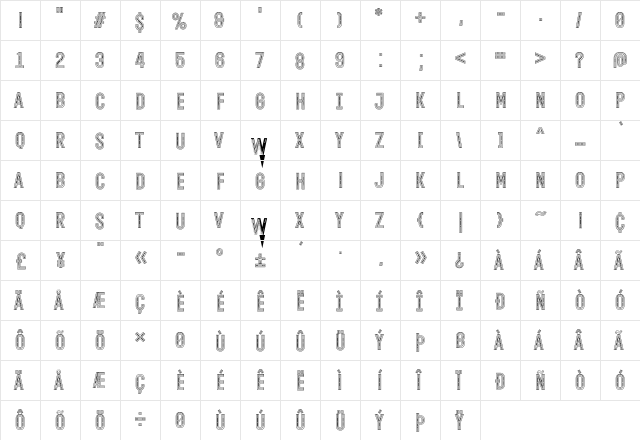
Open Minded Inside Regular
Design Context for Open Minded Inside Typeface
Open Minded Inside offers clean, dependable letterforms without strong stylistic allegiance, making it a practical choice for designers who need flexibility.